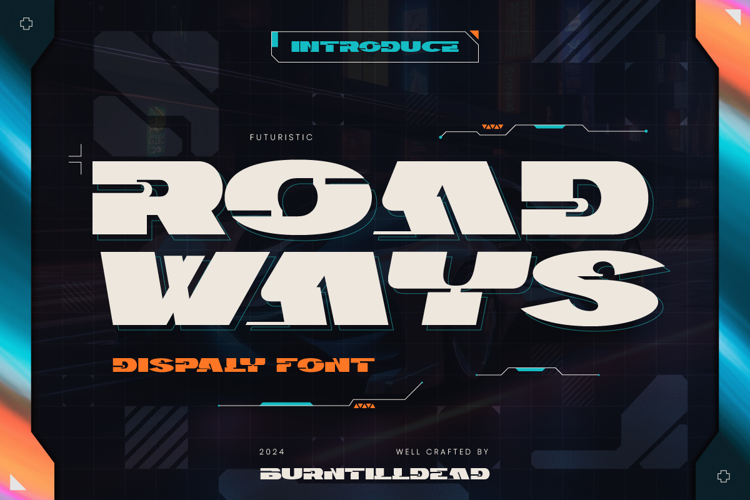
Roadways Font
About Roadways Font
Oblique Style
Roadways brings a futuristic and modern impression with minimalist and unique geometric shapes. This font gives touch of aesthetic forward-thinking and digital or technology era.